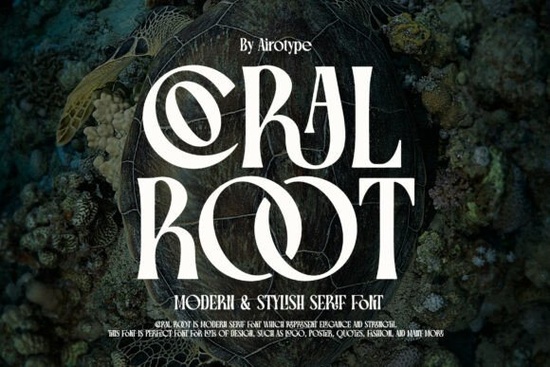
Designers, crafters, and small business owners often look for fonts that add a touch of sophistication without complicating their workflow. {title} is one such font that brings a modern, elegant feel to any project. With its refined serif style and subtle uppercase ligatures, it’s perfect for creating designs that feel both luxurious and approachable.
Coral Root Font is ideal for those who want to elevate their visual content with a touch of class. Whether you're working on a logo, wedding invitation, or social media graphic, this font offers versatility and style. Its clean lines and graceful curves make it suitable for both digital and print applications. To get the best results, make sure your design software supports ligature features, as they enhance the font’s aesthetic appeal.
Why Choose Coral Root Font?
If you're looking for a serif font that balances elegance with readability, Coral Root is a strong choice. It works well in a variety of contexts, from branding materials to personal projects. The font’s design allows it to stand out without being overwhelming, making it a go-to option for many creatives.
One of the standout features of Coral Root is its ability to add a sense of sophistication to any layout. Its uppercase ligatures give it a more polished look, which can be especially useful for headings or focal points in your design. This makes it a popular option among designers who want to create visually appealing content quickly and efficiently.
Best Uses for Coral Root Font
This font shines in projects that require a touch of refinement. Here are some common applications:
- Logo Design: Use it to create a professional and memorable brand identity.
- Wedding Invitations: Add a romantic and elegant touch to your event details.
- Photography Portfolios: Enhance your website or printed work with a stylish font.
- Print-on-Demand Products: Ideal for t-shirts, mugs, and other custom items.
Its adaptability means it can fit into almost any creative space, whether you're working on a personal project or a client's request.
How to Get the Most Out of Coral Root Font
When pairing Coral Root with other fonts, consider using a sans-serif typeface for contrast. This creates a balanced composition that draws attention to key elements without overwhelming the viewer. For example, pairing it with a clean, modern sans-serif can help highlight text while maintaining an overall cohesive design.
Final Thoughts
Coral Root Font is a versatile and stylish choice for anyone looking to add a touch of elegance to their designs. Its combination of modern aesthetics and traditional serif elements makes it suitable for a wide range of projects. Whether you're a designer, crafter, or small business owner, this font can help you achieve a polished and professional look.